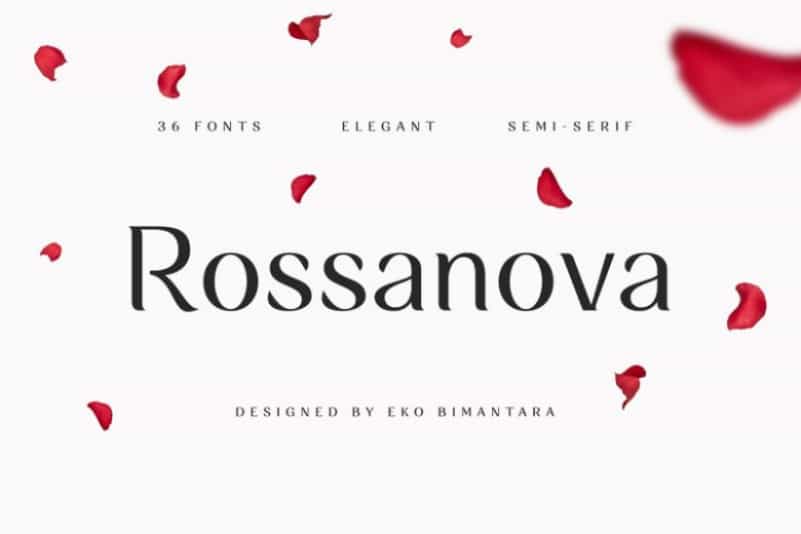
Rossanova is a beautiful and understated serif typeface, ideal for any luxurious logo and branding designs, invitations, magazines, and many other creations. This one is created and uploaded by Eko Bimantara. It has 36 fonts as 2 optical sizes, 8 weights from thin to black, and each with its italics.